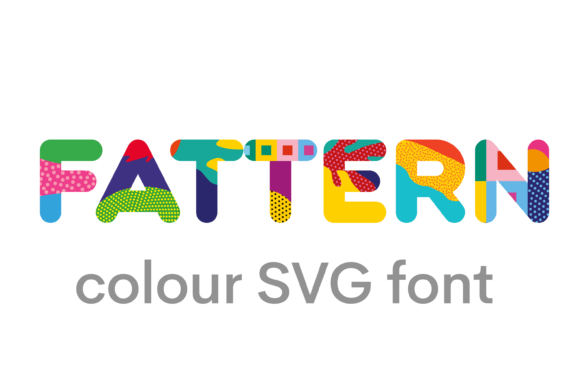
Behold Fattern Font, a captivating and colorful font family that will ignite your creativity and leave you spellbound. Crafted by the ingenious neogrey, Fattern Font exudes a vibrant and playful personality, making it the perfect choice for injecting life into your designs. Whether you're a seasoned designer or just starting, Fattern Font is your gateway to creating designs that burst with personality and charm.
Dive into a world of limitless possibilities with Fattern Font. Its versatility knows no bounds, effortlessly adapting to an array of contexts, from whimsical logos and eye-catching social media posts to captivating branding and packaging designs. Unleash your imagination and watch as Fattern Font transforms your creative visions into captivating realities.
With Fattern Font, you'll discover a symphony of colors dancing across your designs. Its vibrant hues and playful shapes bring a touch of magic to every project, guaranteed to leave a lasting impression on your audience. Embrace the power of color and let Fattern Font ignite your creativity like never before.